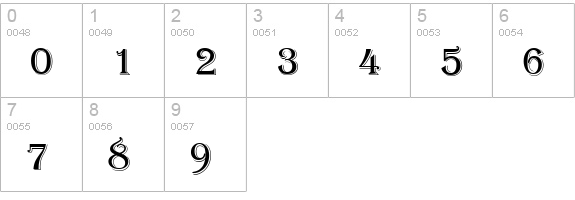
Alfredo-Regular is the standard, neutral variant in the Alfredo typeface family \xE2\x80\x94 well suited to general body text, paragraphs, and standard typographic work.
Alfredo-Regular is a timeless and versatile font that offers a classic yet modern aesthetic, suitable for a wide range of design projects. With its clean lines and elegant curves, this font exudes sophistication and professionalism. The balanced letterforms make it easy to read both in print and on screen, making it ideal for various applications such as branding, editorial design, and web design. What makes Alfredo-Regular even more appealing is that it is available for free download at FontsMarket.com. This means that designers and creatives can easily access this high-quality font without any cost, making it a valuable addition to their font library. Whether you're working on a personal project or a client's design, Alfredo-Regular is a reliable choice that will elevate your work to the next level.